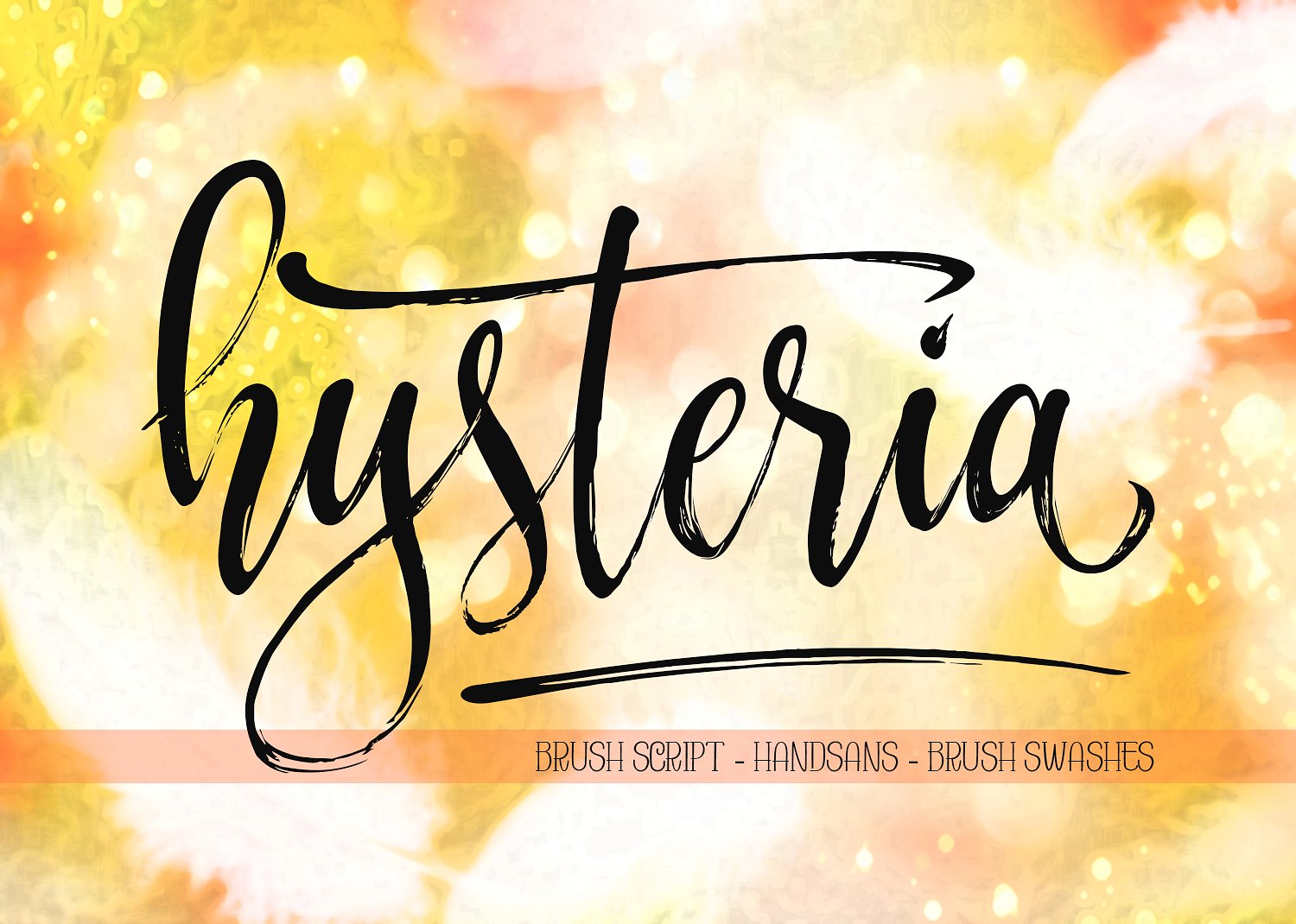
Hysteria Script
Hysteria Script Font
Hysteria Brush comes with upper and lowercase characters, punctuation glyphs, numerals, web font, and supports international languages. Stylistic sets for several key lower case characters are also available. Perfect for logo marks, typographic quotes over photos, book covers and packaging design.